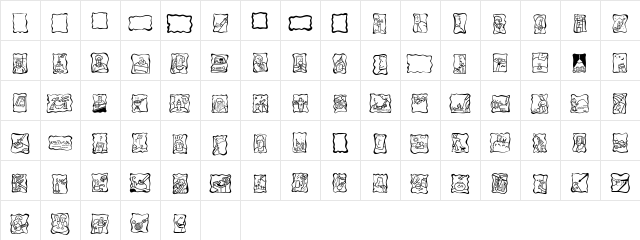
Mini Pics White Bread Regular Free Font
Mini Pics White Bread Regular
Year: 1996 (Wed, 27th Nov 1996)
Design Context for Mini Pics White Bread
Mini Pics White Bread is a composed and adaptable typeface that performs quietly and consistently across a wide range of design contexts.